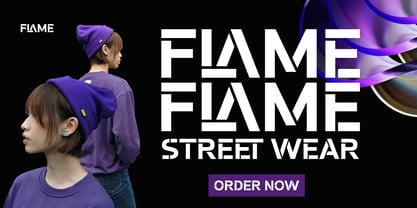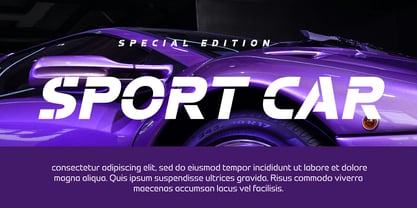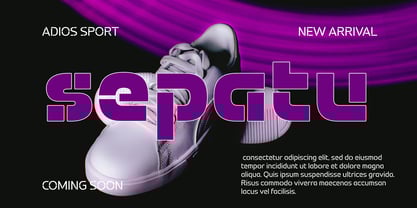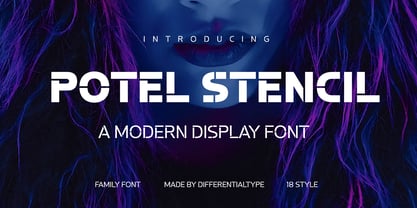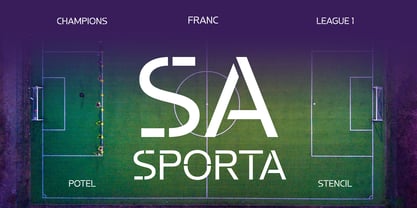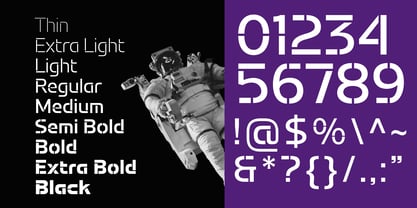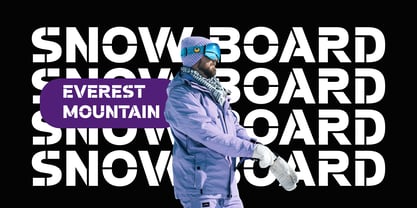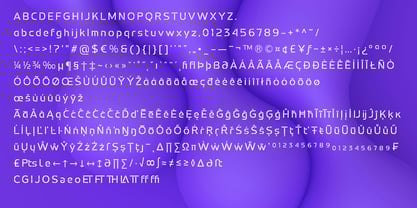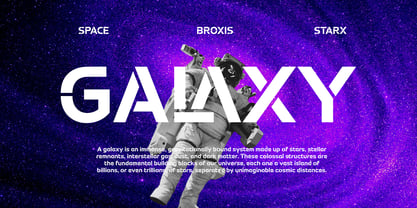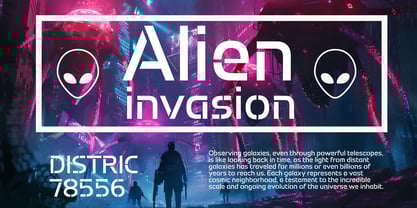
Potel Stencil
by Differentialtype
The Potel Stencil Font Family was designed by Sidik Sidik and published by Differentialtype. Potel Stencil contains 18 styles and family package options.
Potel Stencil is a modern typeface family that blends a futuristic aesthetic with a strikingly unique cut-out feel. With 18 styles, ranging from Thin to Black, and including Italic variations for each weight, this font offers exceptional versatility for diverse design needs. Every character in Potel Stencil is precisely crafted, featuring distinctive cuts that convey a sophisticated and high-tech impression, making it an ideal choice for innovative and daring designs.
The uniqueness of Potel Stencil makes it highly suitable for displays such as posters, film promotions, album covers, logotypes, and product branding. This font isn't just a design tool; it's a powerful visual statement capable of grabbing attention and leaving a lasting impression. For designers seeking to combine modern clarity with a bold, cut-out nuance, Potel Stencil is the perfect solution for creating unforgettable visual impact.